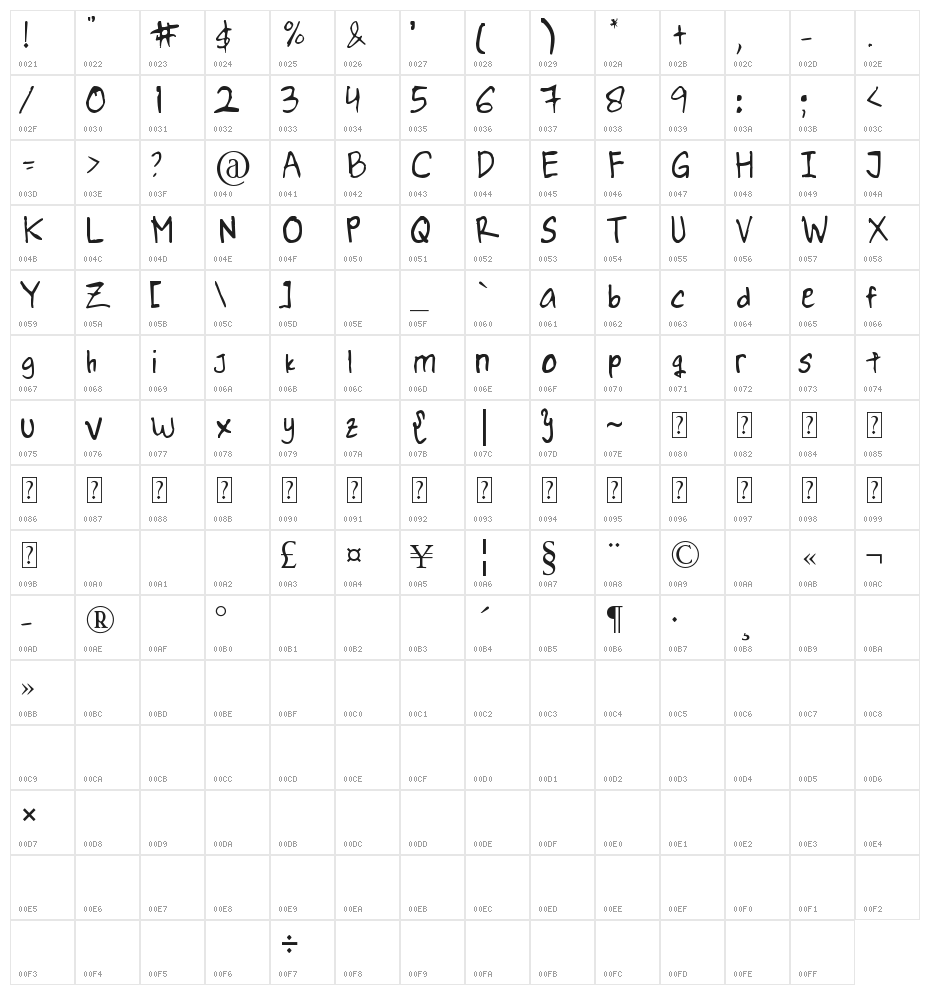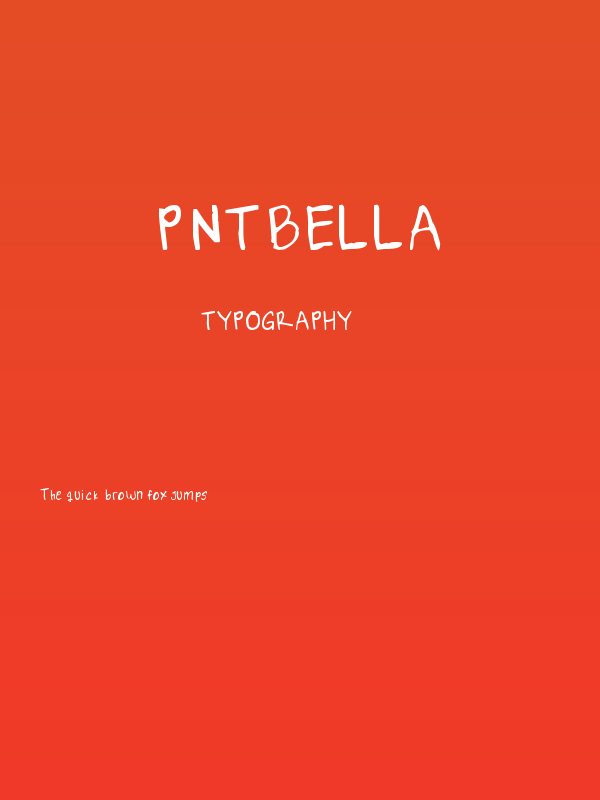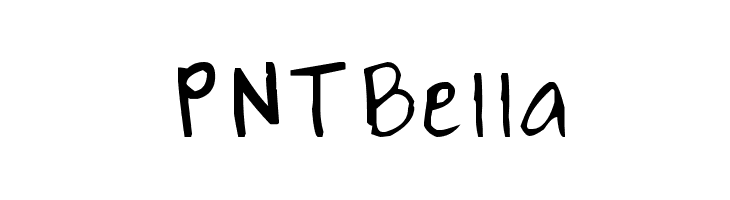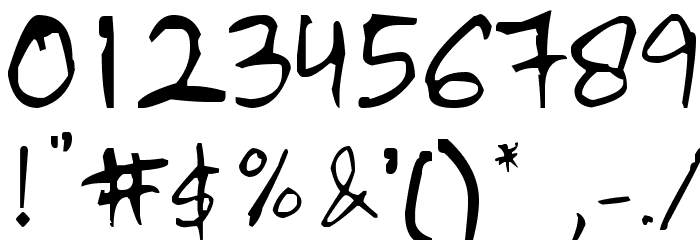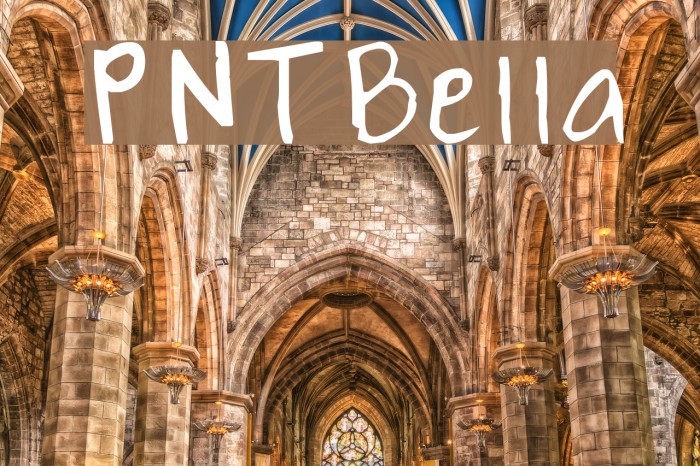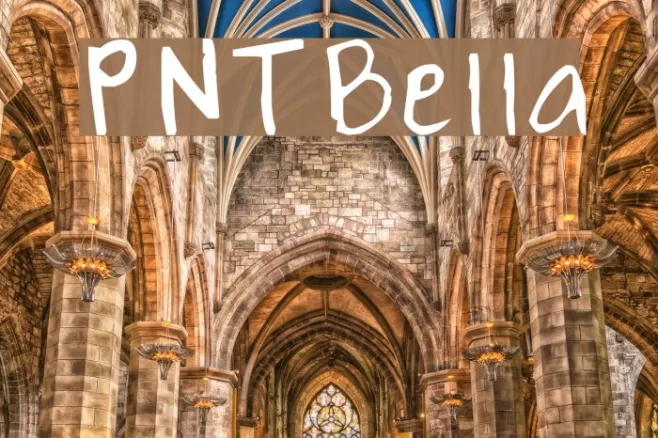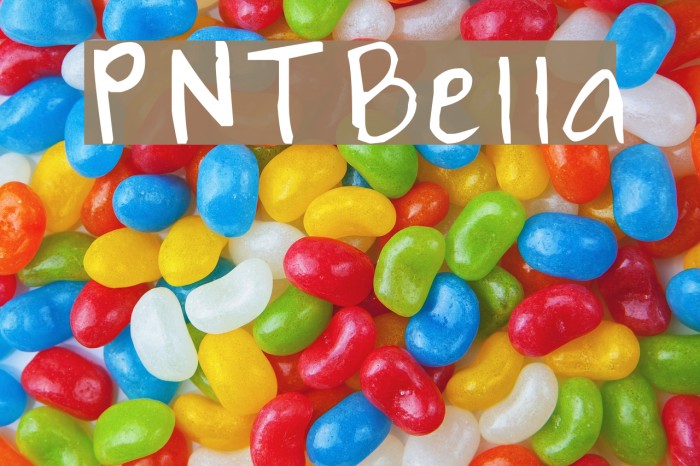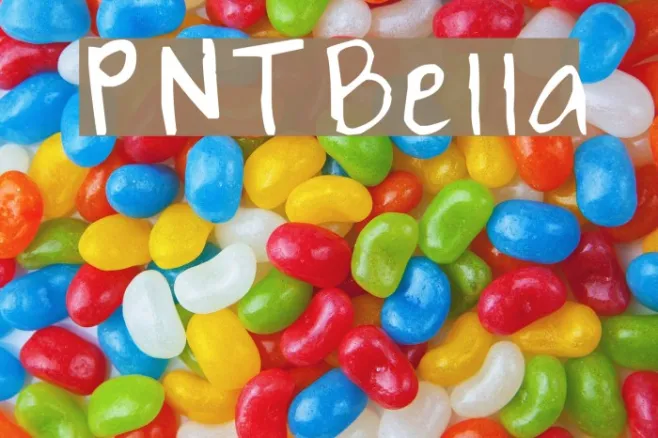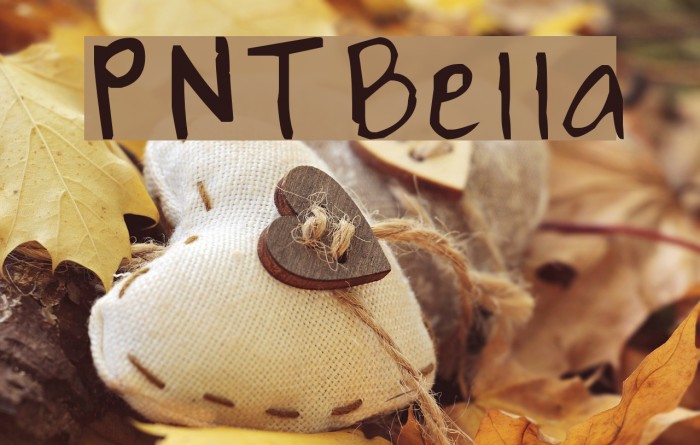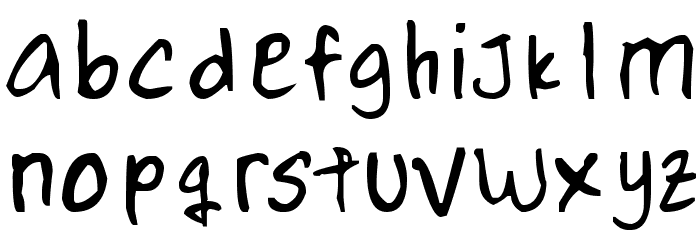
PNTBella Font
PNTBella Description
This font exhibits a playful and casual handwritten style, characterized by its irregular and organic letterforms. The strokes are uneven, giving it a dynamic and lively appearance. The uppercase and lowercase letters maintain a consistent style, with a slight slant that adds to its informal charm. The numbers and special characters follow the same whimsical design, making the font suitable for creative and informal projects. Its unique personality makes it stand out, while still being legible and versatile for various uses.
PNTBELLA UPPERCASE
PNTBELLA LOWERCASE
PNTBELLA OTHER CHARS